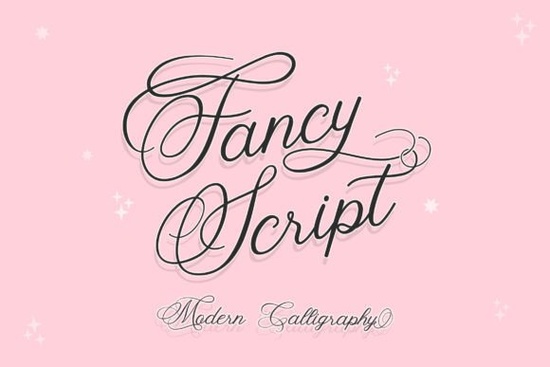
If you’ve been searching for a handwritten script that feels both polished and personal, the Fancy Script Font might be exactly what your next project needs. It’s got that graceful flow you see in high-end stationery or boutique branding smooth letterforms that connect naturally, without looking stiff or overworked. Whether you’re designing wedding invites, packaging labels, or social media graphics, this font brings a touch of elegance without demanding hours of customization.
What makes it especially handy is its PUA encoding. That means all those swashes, alternates, and ligatures? You don’t need to dig through glyph panels or install extra files. Just type, and the stylistic variations appear right in your design software whether you’re using Canva, Adobe Illustrator, or even Silhouette Studio. For crafters who work with cutting machines or print-on-demand sellers uploading to Etsy or Redbubble, that kind of plug-and-play functionality saves real time.
How does Fancy Script compare to other script fonts?
Not all script fonts behave the same way. Some feel too rigid, others too chaotic. If you’ve tried Quickly Replaced Font, you know how useful a fast-swapping alternative can be but it doesn’t always deliver the finesse needed for luxury branding. Meanwhile, Hello Andyanduo leans playful and casual, which is great for kids’ products or fun merch, but not ideal when you want sophistication.
Melody Tunes has a musical rhythm to it literally and works beautifully for event posters or music-related designs. And if you’re into bold, industrial vibes, Rathgar Stencil gives you that rugged charm. But none of them quite match the refined, flowing personality of Fancy Script. It sits comfortably between formal calligraphy and modern handwriting legible enough for small text, expressive enough for headlines.
Where should you use this font?
Here are some real-world uses where Fancy Script shines:
- Wedding & Event Invitations Pair it with a clean sans-serif for contrast. The script handles names and dates beautifully.
- Product Packaging Especially for artisan goods like candles, soaps, or gourmet foods. It adds perceived value without screaming “fancy.”
- Social Media Quotes Overlay it on photos for Instagram posts or Pinterest pins. The natural curves photograph well and read clearly at smaller sizes.
- Branding Logos Use sparingly for taglines or signature elements. Avoid full business names unless they’re short (under 5 letters).
- Craft Projects Think vinyl decals, embroidery digitizing, or heat-transfer designs. The glyphs hold up even when scaled down.
One tip: don’t pair it with another script. Two flowing fonts together tend to clash visually. Instead, go with something minimal a thin geometric sans or even a classic serif like Garamond. Let Fancy Script be the star.
Why does PUA encoding matter for designers?
If you’ve ever downloaded a “free” script font online only to find half the letters missing or no alternate characters available, you’ve run into non-PUA fonts. These often require manual glyph insertion or font-switching mid-project a nightmare if you’re on deadline.
Fancy Script’s PUA support means every stylistic variation is mapped to standard Unicode points. So when you type “T-h-a-n-k-s,” the program automatically substitutes connected forms or flourished endings where appropriate. No plugins. No workarounds. Just type and let the font do its thing.
Who’s buying this font and why?
Most users fall into three buckets:
- Small business owners creating their own marketing materials without hiring a designer.
- Print-on-demand creators building collections for mugs, shirts, or journals on platforms like Teespring or Printful.
- Hobbyist crafters making personalized gifts, scrapbooks, or home decor with Cricut or Silhouette machines.
All of them value ease-of-use as much as aesthetics. They don’t want to spend hours tweaking kerning or hunting for ligatures. Fancy Script delivers style without the steep learning curve.
Before you download, here’s a quick checklist:
- ✅ Test it with your most common words names, phrases, product titles to see how the connections flow.
- ✅ Check licensing. Personal? Commercial? Extended for POD? Creative Fabrica usually includes broad rights, but always verify.
- ✅ Pair it early. Try mockups with your secondary font before committing to a full brand suite.
Fonts like this aren’t just decorative they’re tools. And Fancy Script is one of those rare finds that looks expensive but works effortlessly. Whether you’re refreshing a logo, launching a product line, or just making something beautiful for yourself, it’s worth adding to your toolkit.